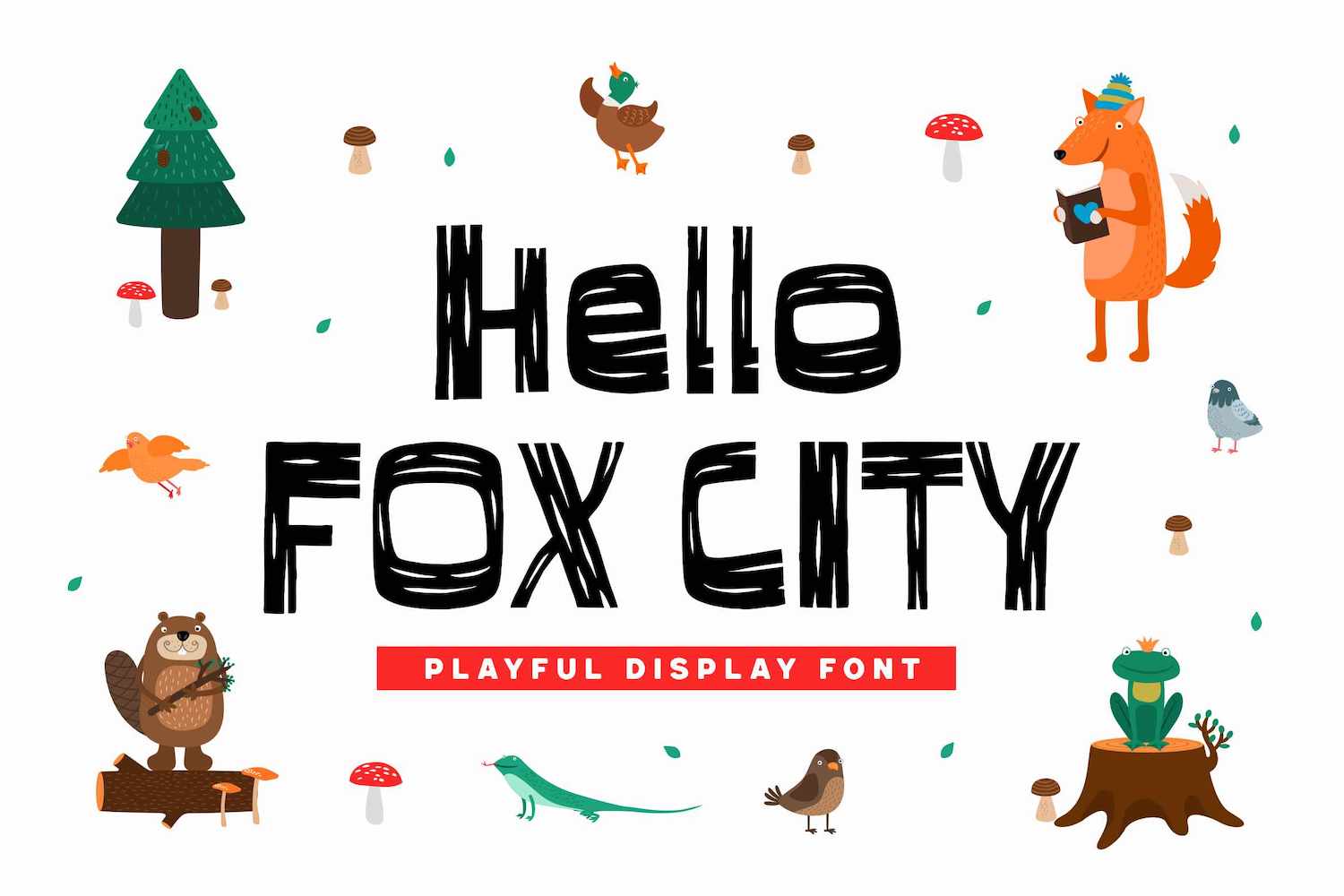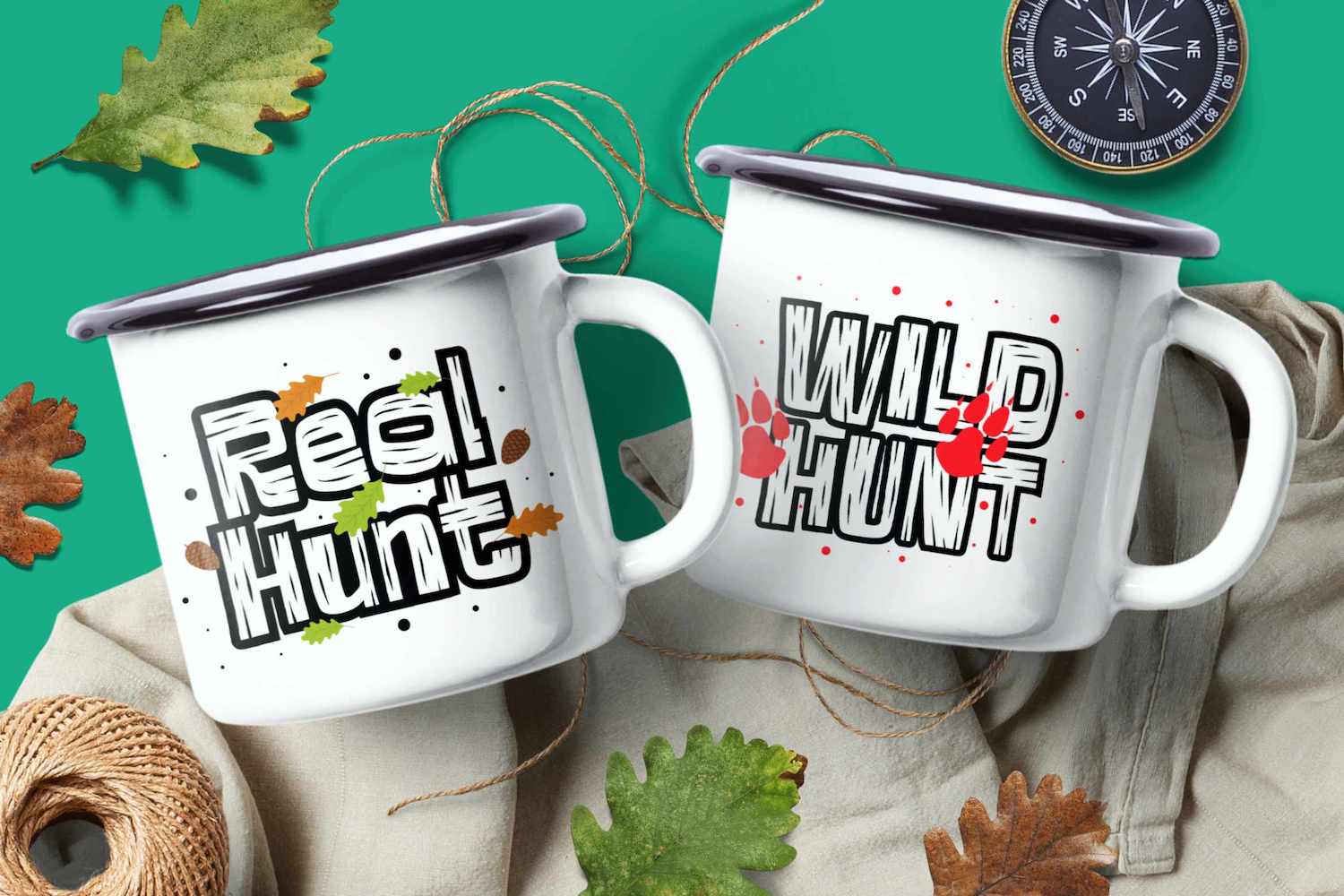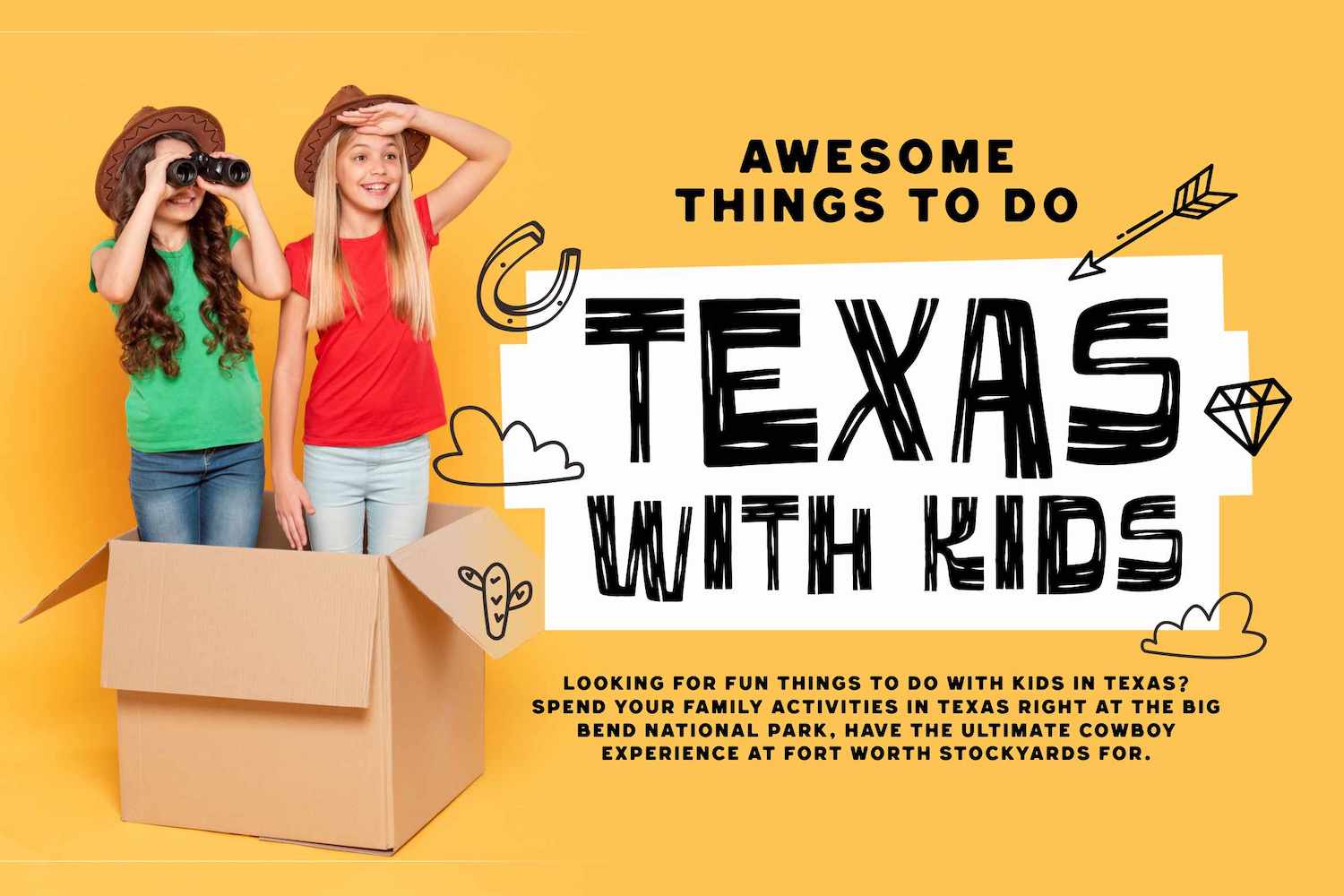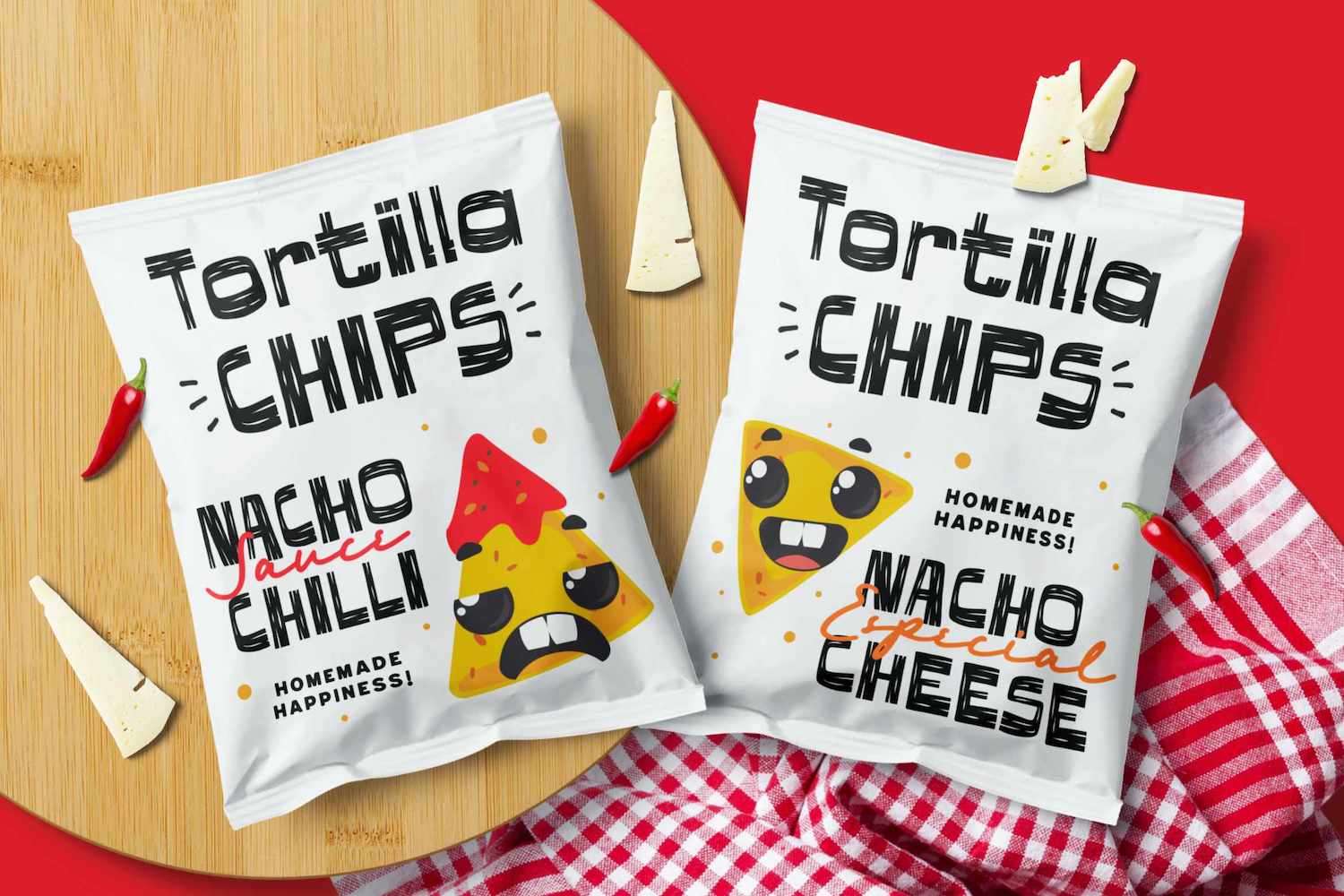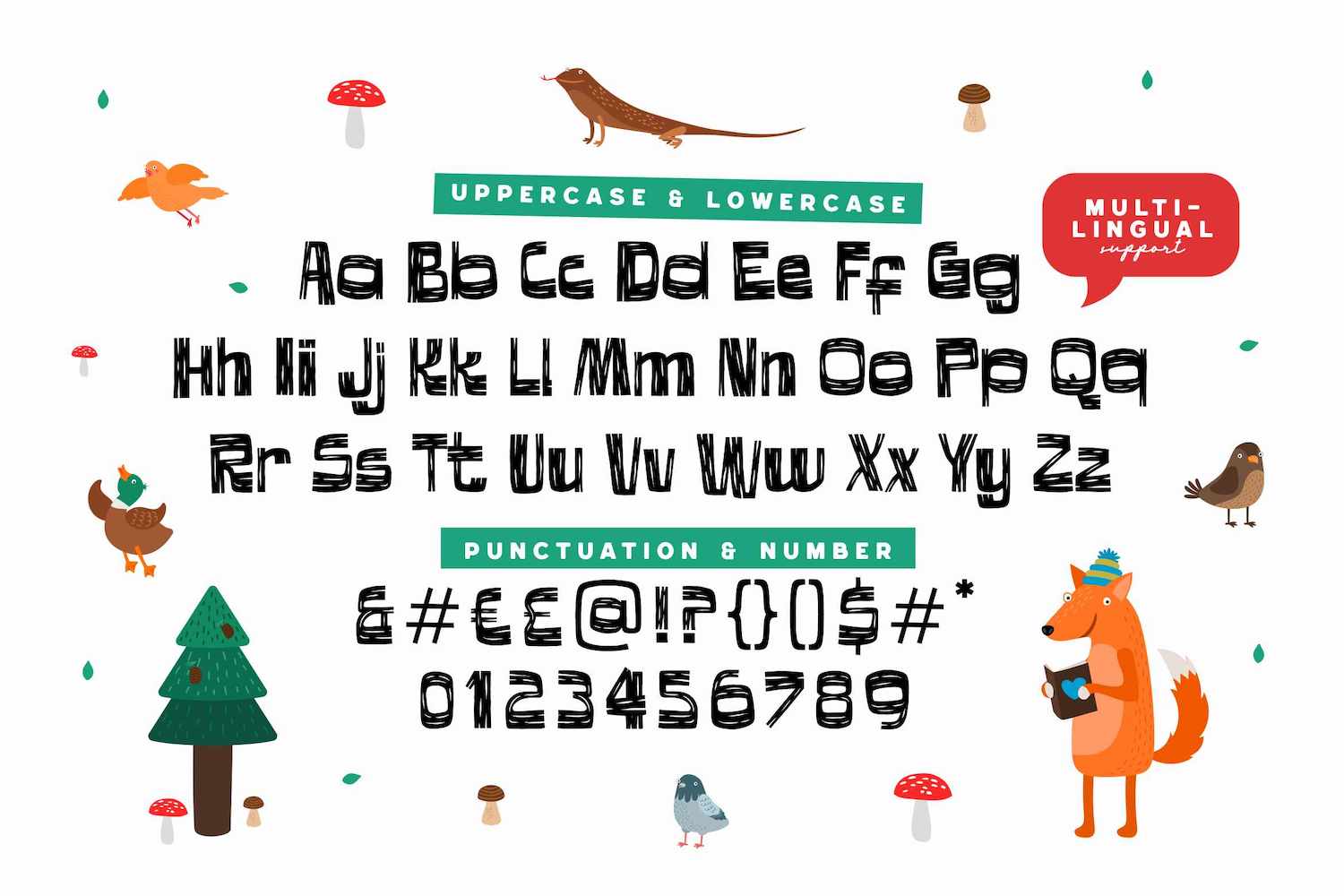
Fox City is a quirky and adventurous playful display font inspired by woodland vibes and hand-drawn textures. Its bold, irregular strokes and fun personality make it a perfect choice for kid-friendly designs, nature-themed branding, book covers, packaging, and classroom materials. Each letter feels like it was sketched with joy, adding a touch of spontaneity and charm to every word.
Equipped with multilingual support, uppercase and lowercase characters, punctuation, and numbers, Fox City is highly versatile and fun to work with. Whether you’re designing for children, forest-themed products, or creative merchandise like mugs and snacks, this font brings a delightful forest spirit to your visuals.
Fox City